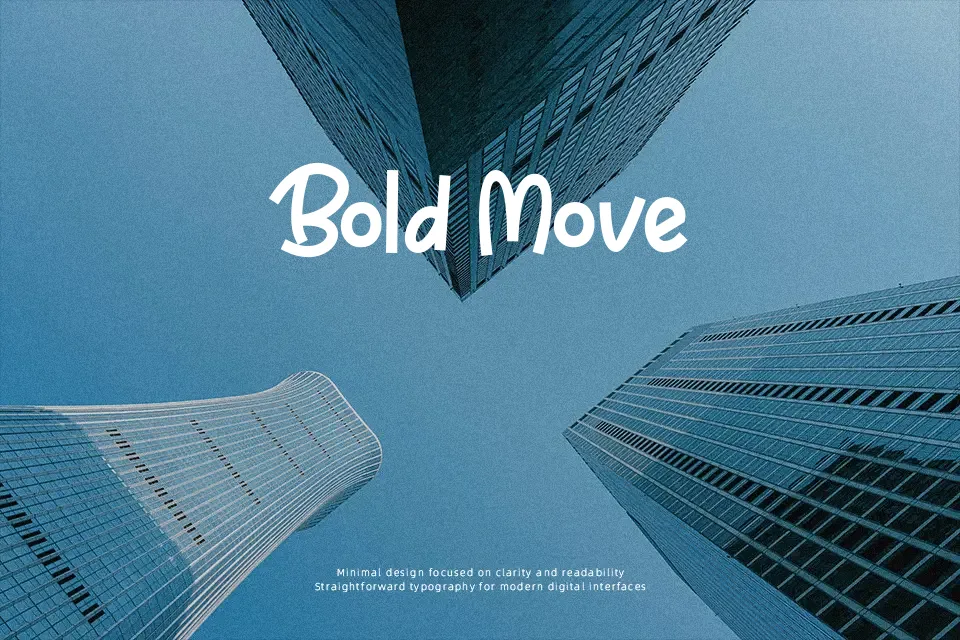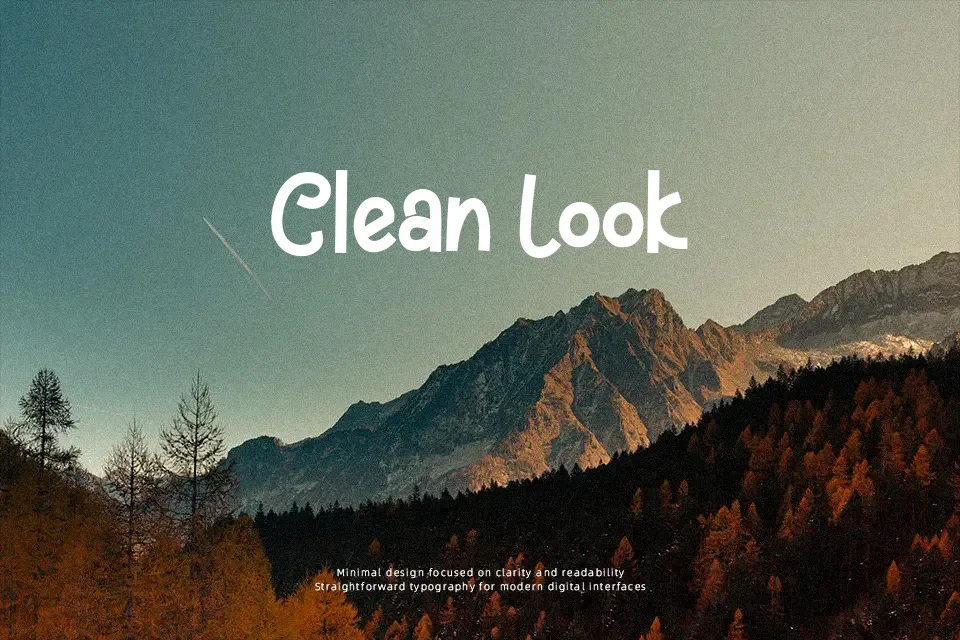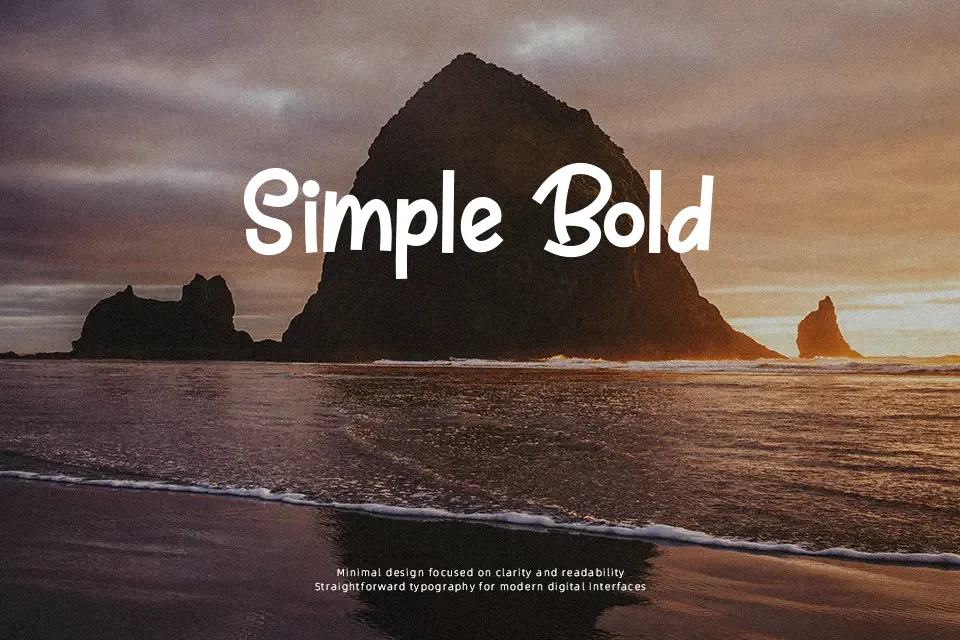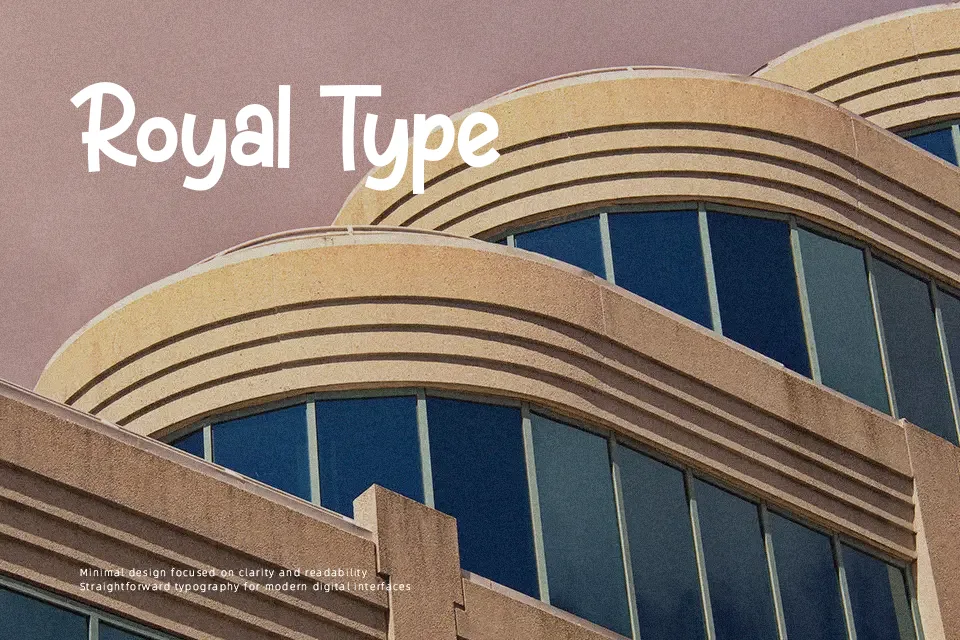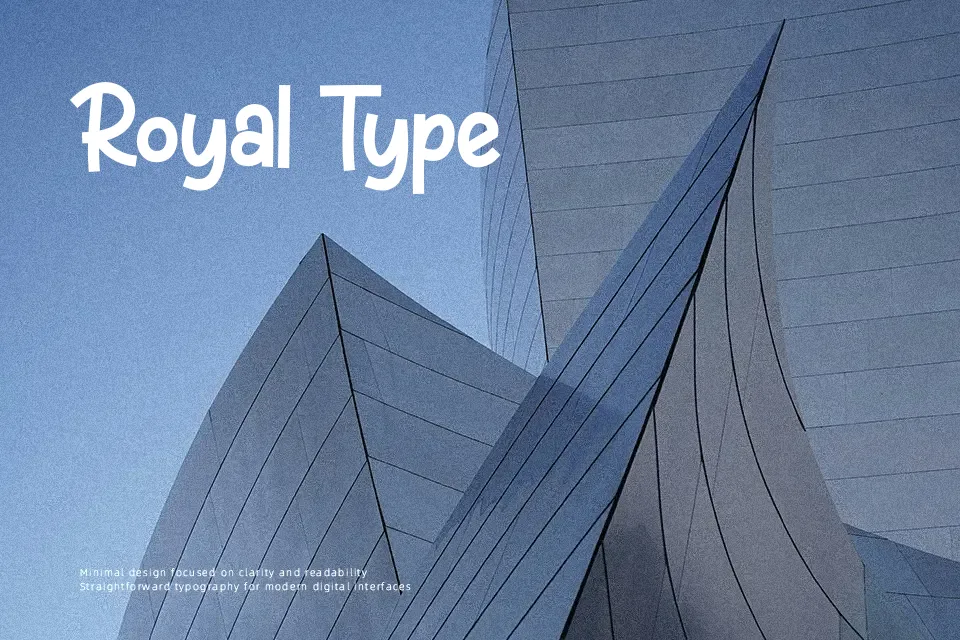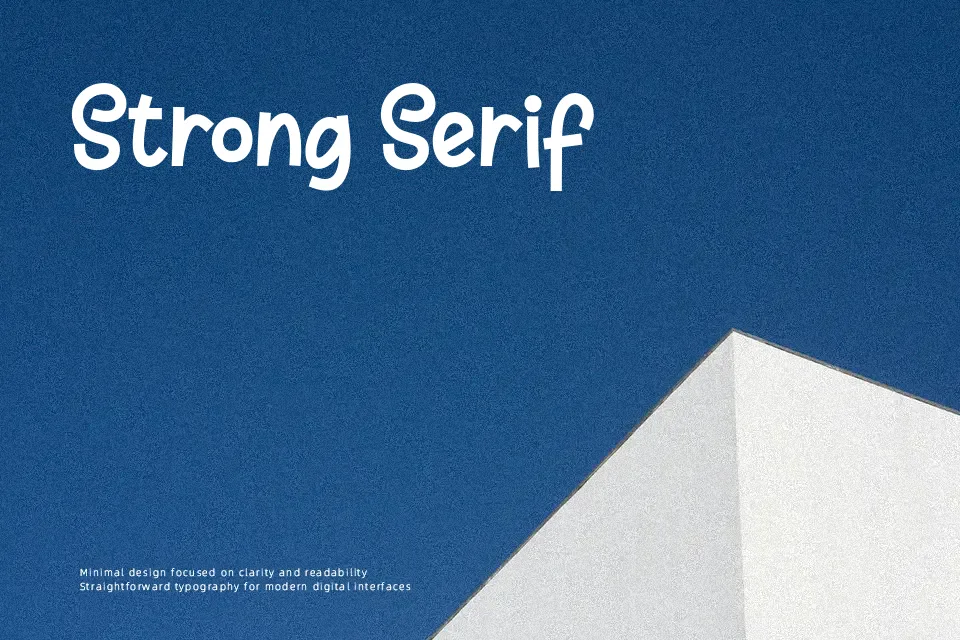
Charly Dreams Font
Charly Dreams Font delivers an informal display structure built around softened terminal joins, robust stroke thickness, and buoyant baseline alignments. The generous character width and balanced letter spacing give the letterforms an inviting rhythm across large header placements. At display scales, the typeface maintains crisp definition for toy branding, event banners, and juvenile merchandise graphics. However, the exaggerated curves and reduced counter spaces impair comfort during continuous reading, making the design less effective for multi-line body copy or compact editorial paragraphs. The robust weight ensures immediate visual impact across vibrant, youth-oriented compositions.
Best For: children’s book covers,cartoon title cards,toy packaging,event banners
Not Ideal For: dense editorial paragraphs,corporate reports,legal documentation,small interface labels
Perfect for branding, headline, and kids, with a bold and cartoon style.